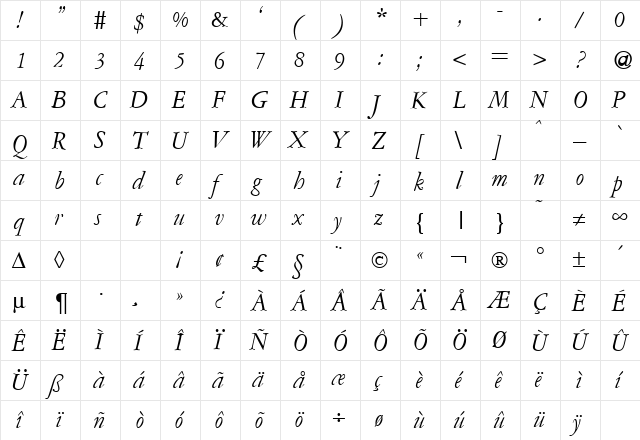
AmsterdamerGaramont RegularItalic
Design Context for AmsterdamerGaramont Typeface
AmsterdamerGaramont offers clean, dependable letterforms without strong stylistic allegiance, making it a practical choice for designers who need flexibility. The dynamic lean of this cut emphasises speed and emphasis in any layout.